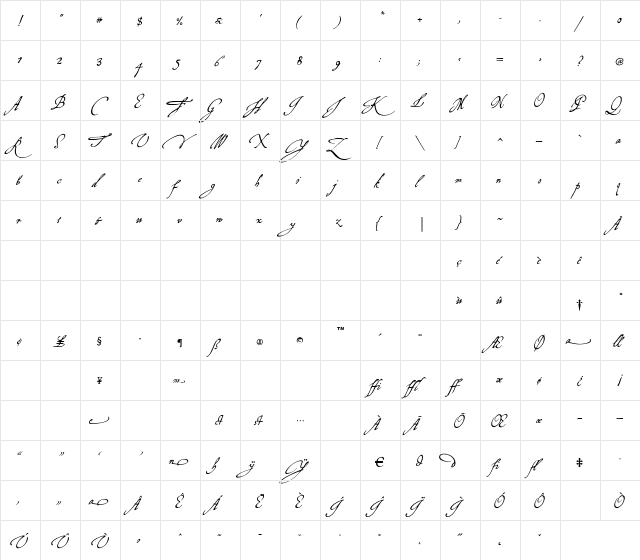
P22Virginian Regular
Design Context for P22Virginian Typeface
P22Virginian is a composed and adaptable typeface that performs quietly and consistently across a wide range of design contexts.